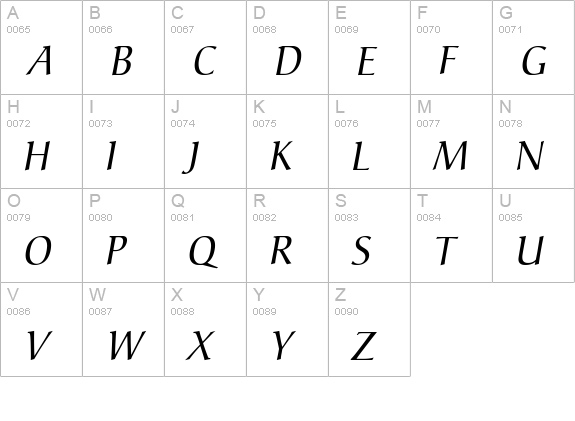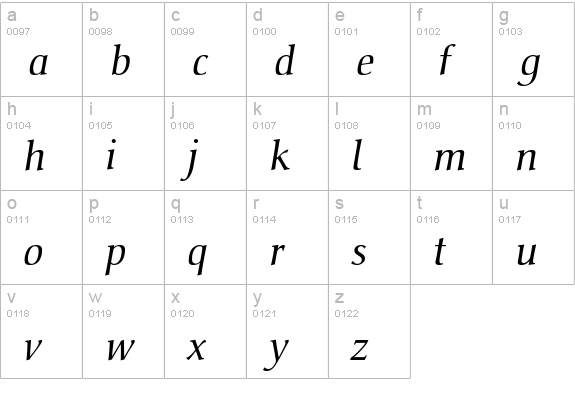
Christiana Italic Font Details
Christiana Italic is a distinctive, italic variant in the Christiana typeface family \xE2\x80\x94 well suited to design and typography projects.
Christiana Italic is a graceful and sophisticated font that exudes elegance and charm. With its slanted and stylish letterforms, this typeface adds a touch of class to any design project. The delicate curves and subtle details of Christiana Italic make it perfect for conveying a sense of refinement and luxury. What makes Christiana Italic even more appealing is that it is available for free download at FontsMarket.com. This means that you can easily access this beautiful font and use it in your projects without any cost. Whether you're working on invitations, branding materials, or any other creative endeavor, Christiana Italic is sure to elevate your design with its timeless beauty. Enhance your work with the sophistication of Christiana Italic today!